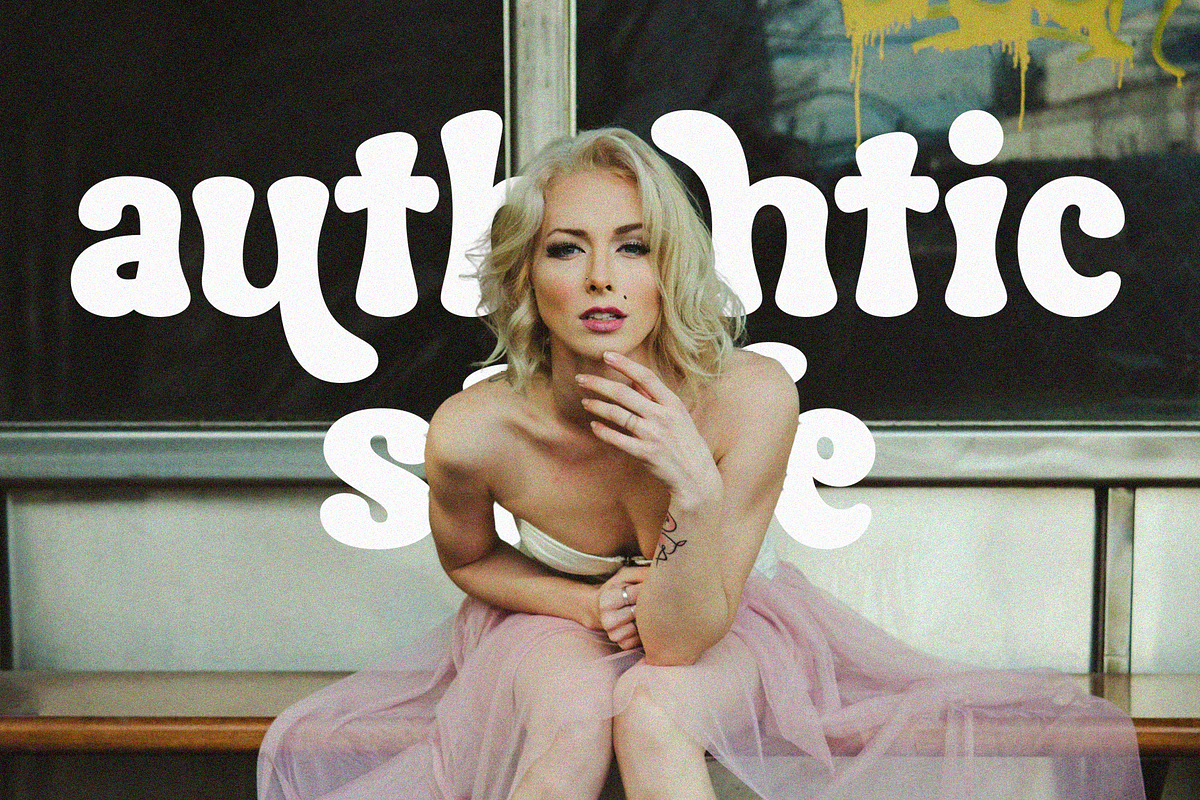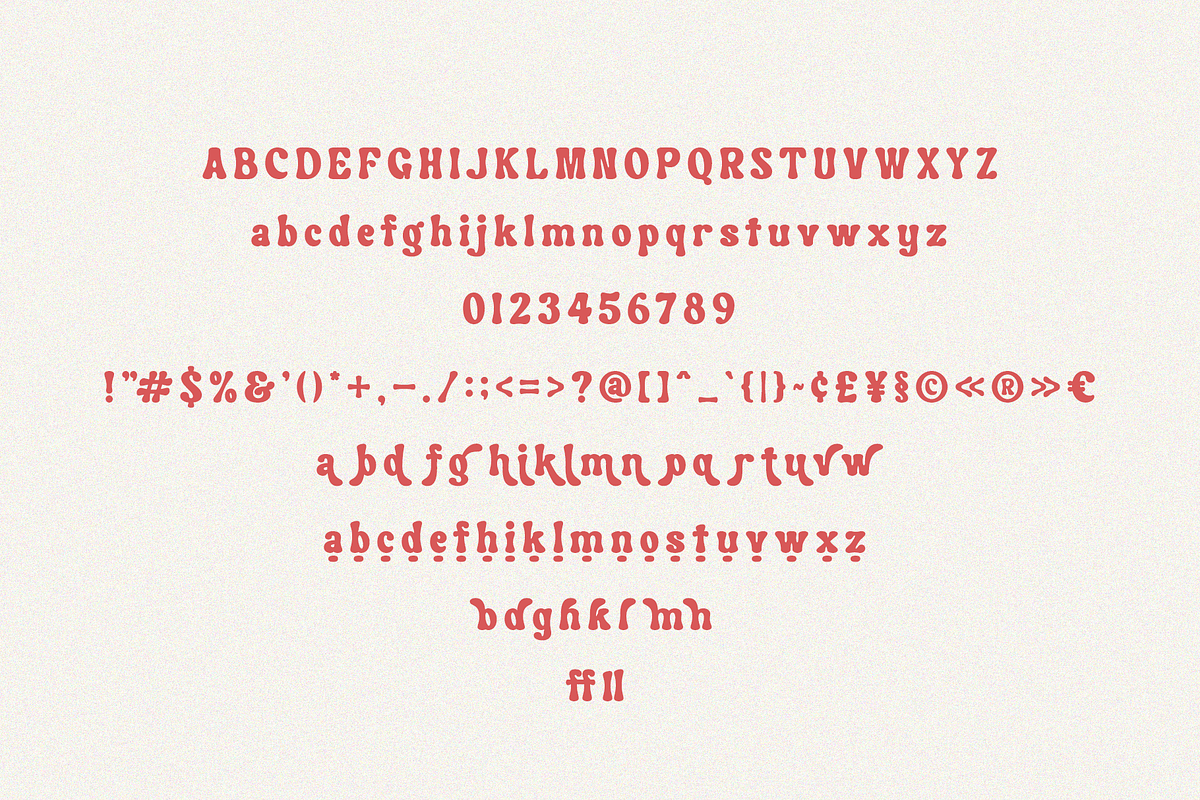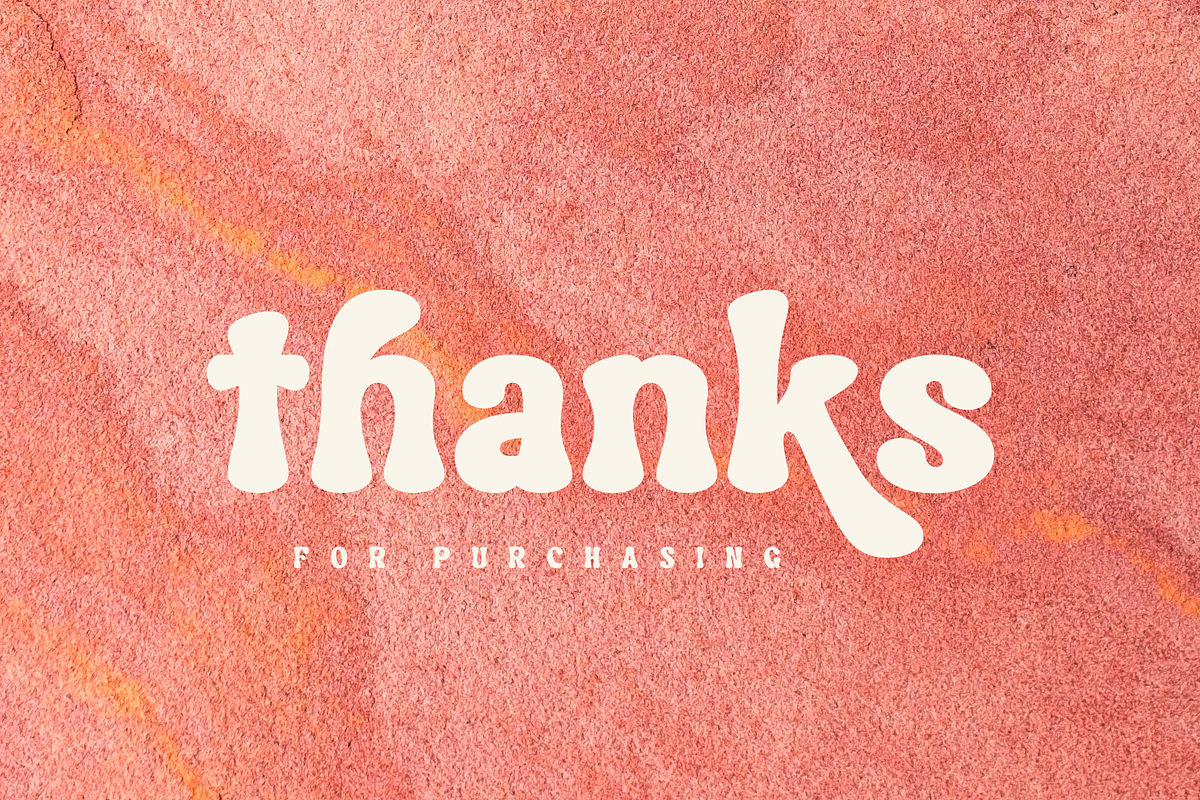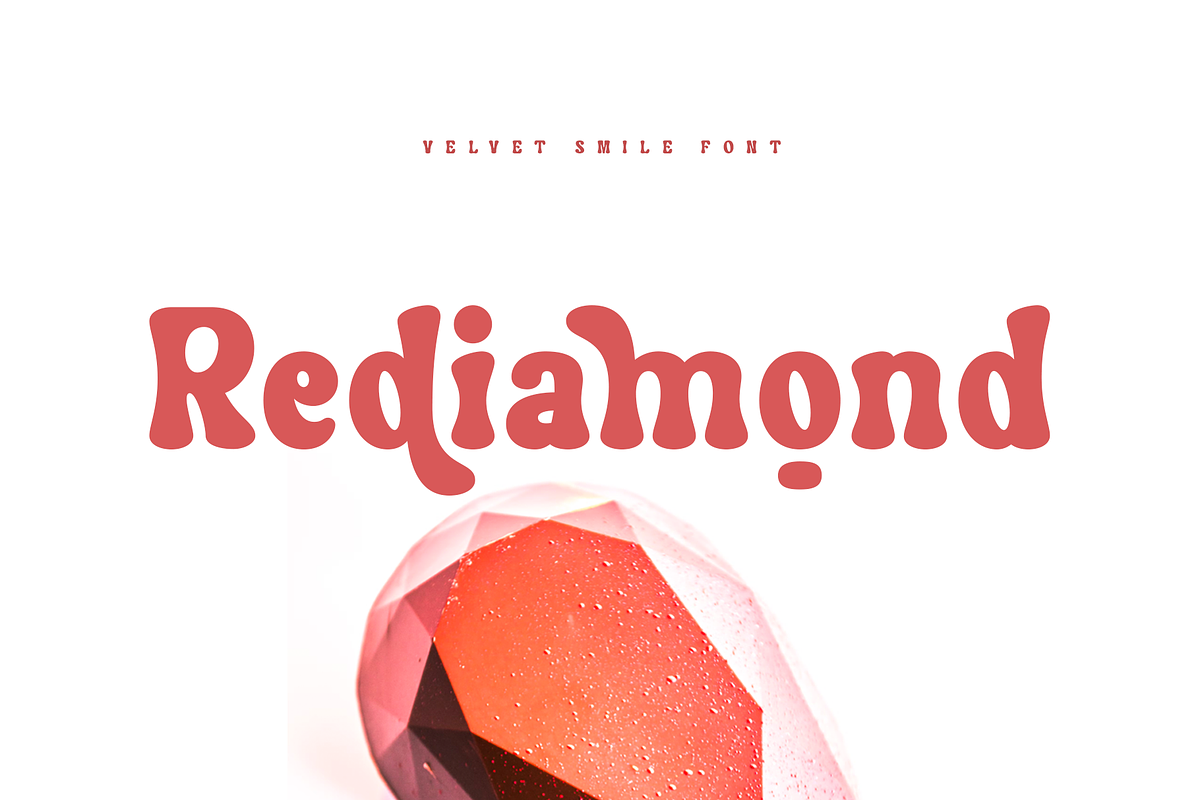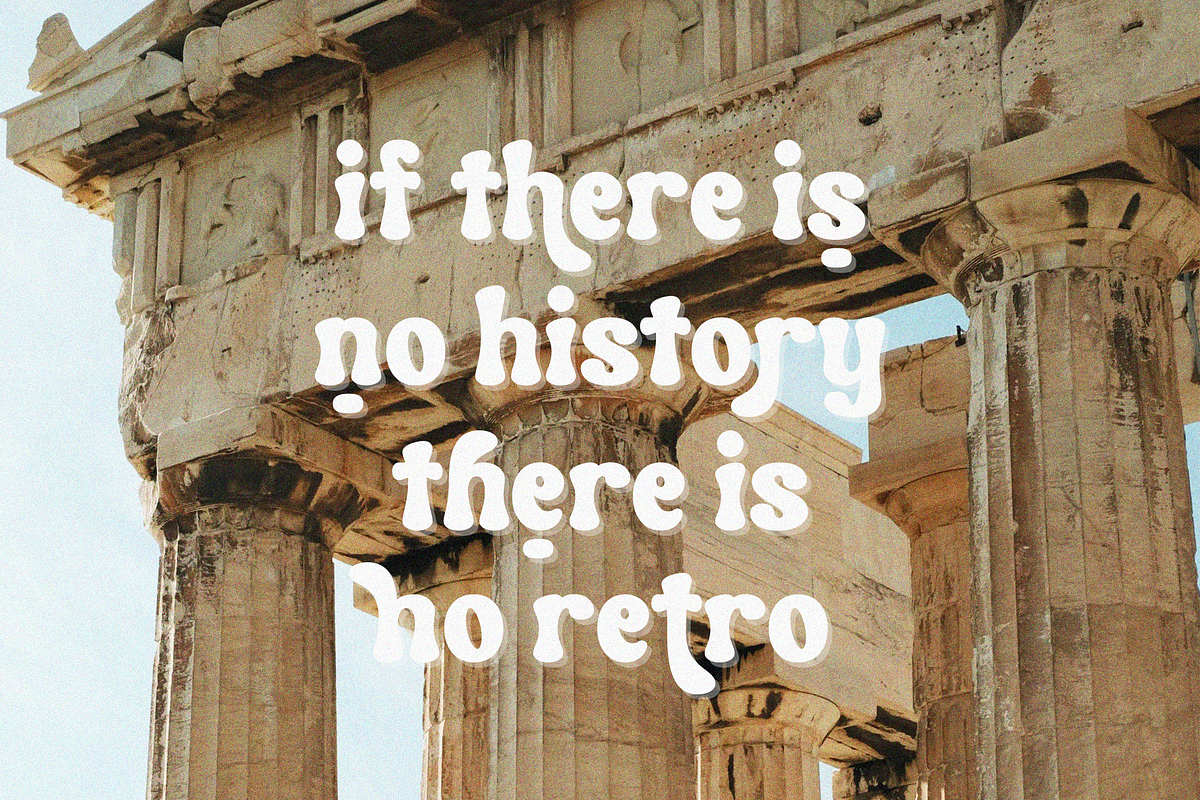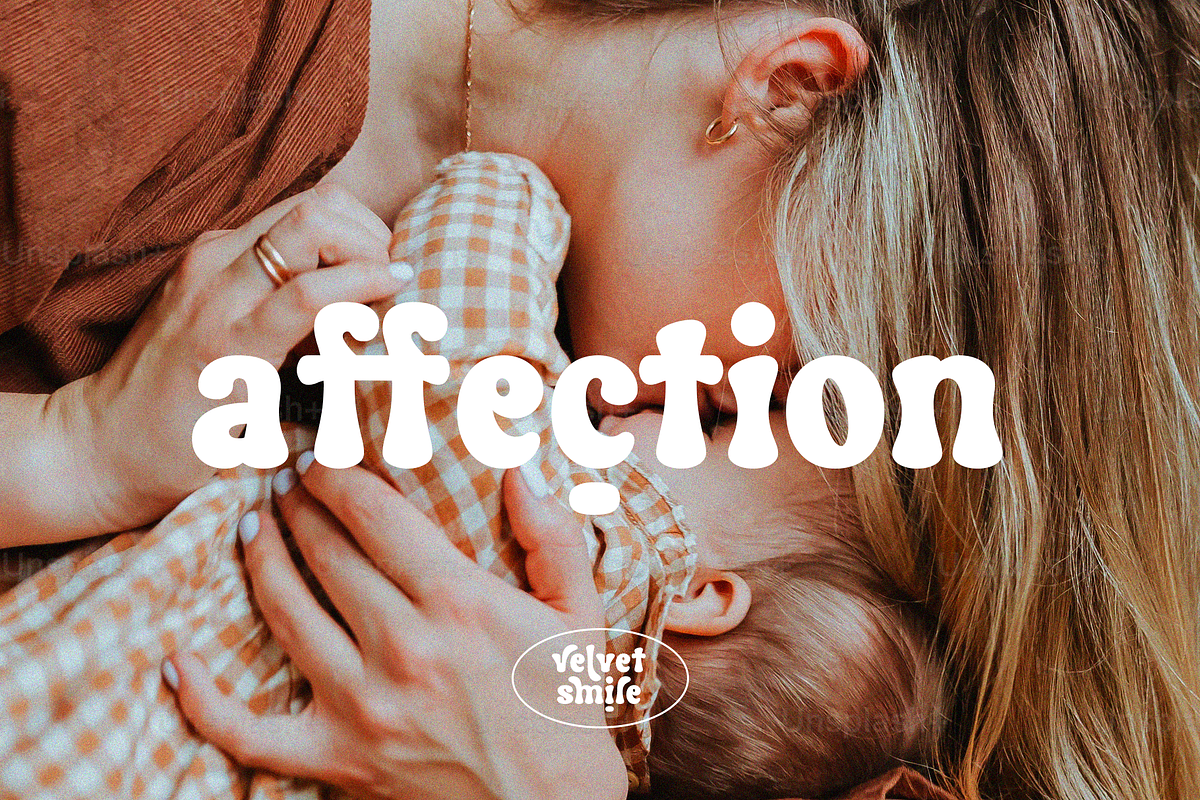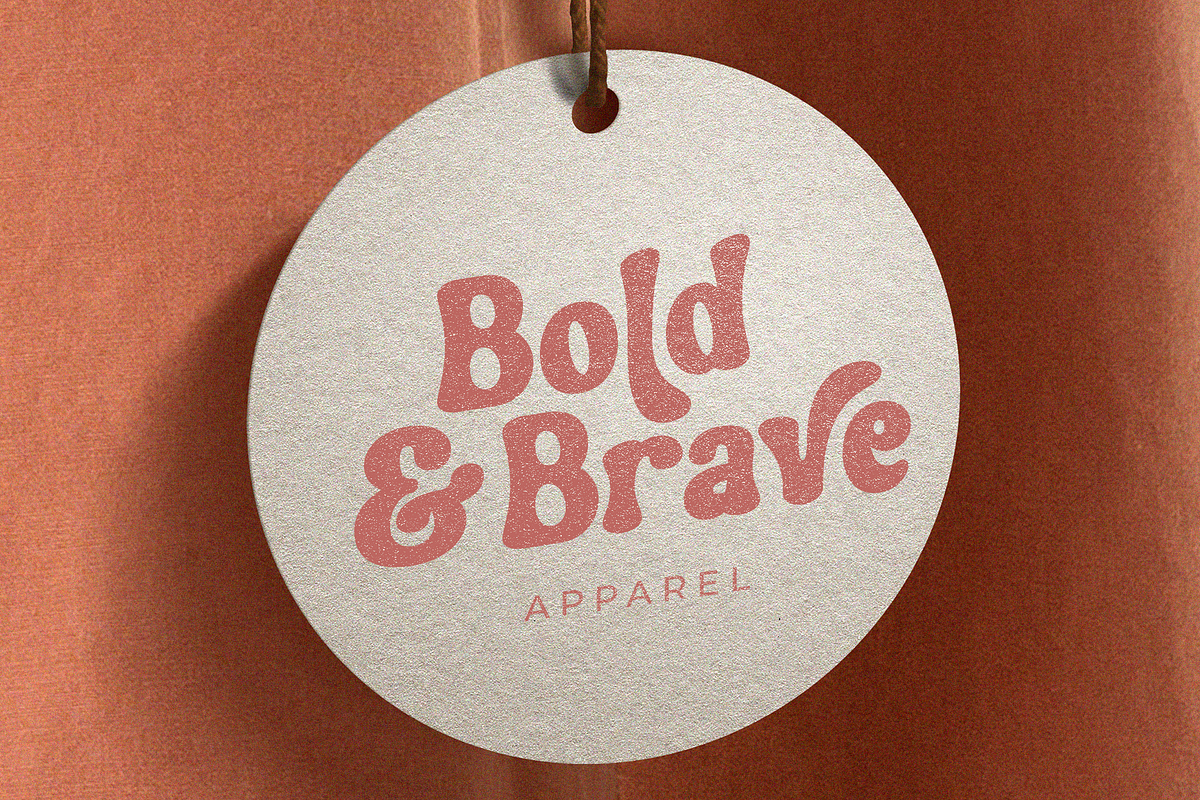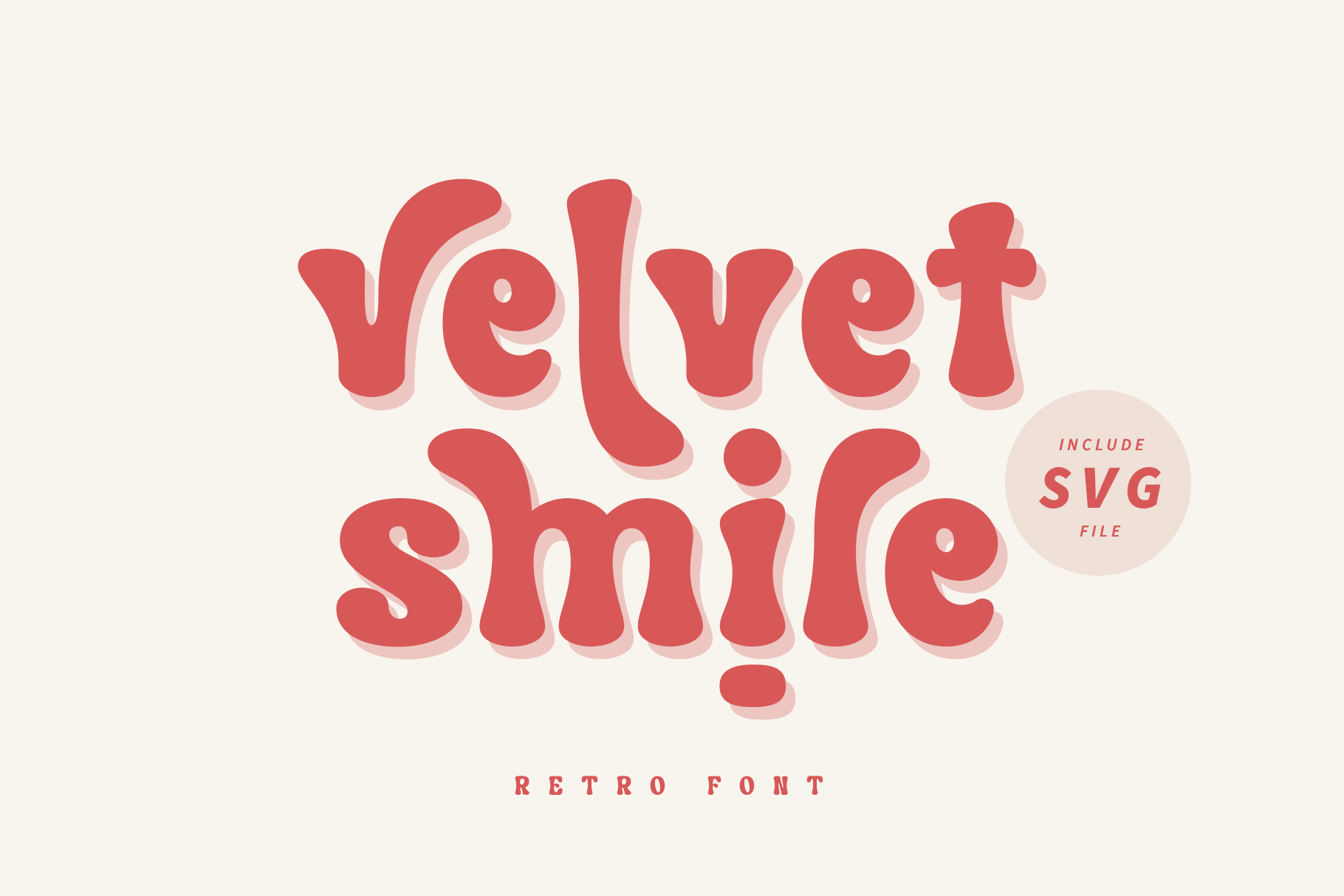
Velvet Smile Retro Font
Proudly present "Velvet Smile Retro Font"
Velvet smile is a a captivating retro serif font that effortlessly blends clean lines with a hint of round charm. This font is a homage to timeless design, offering a perfect balance between sophistication and playfulness.
This Font come with ligature and bunch of alternate letter, each character tells a story, inviting users to explore a world where every curve and contour is a brushstroke of elegance. Elevate your projects with Velvet Smile and add a touch of vintage allure to your typography. Unleash the power of nostalgia and modern design with this versatile and enchanting font.